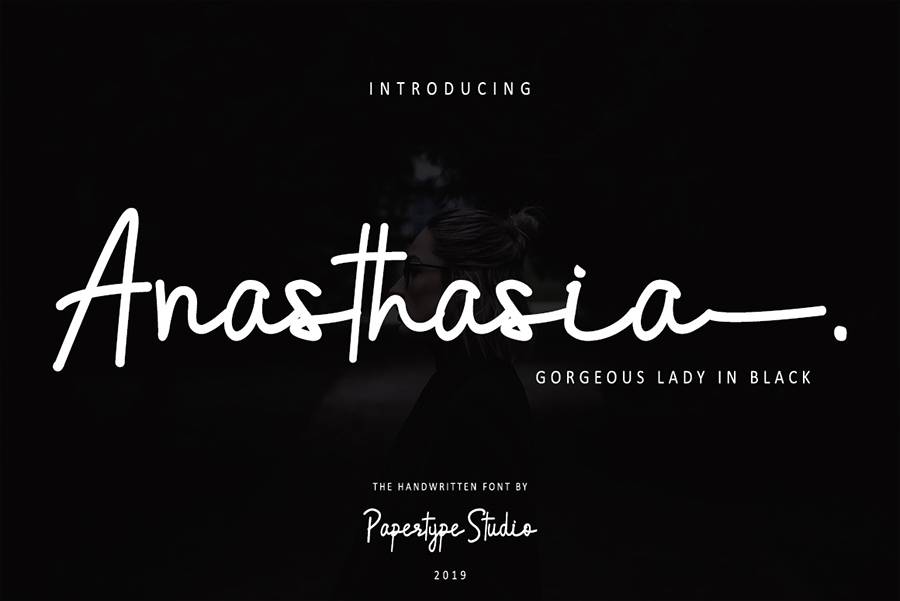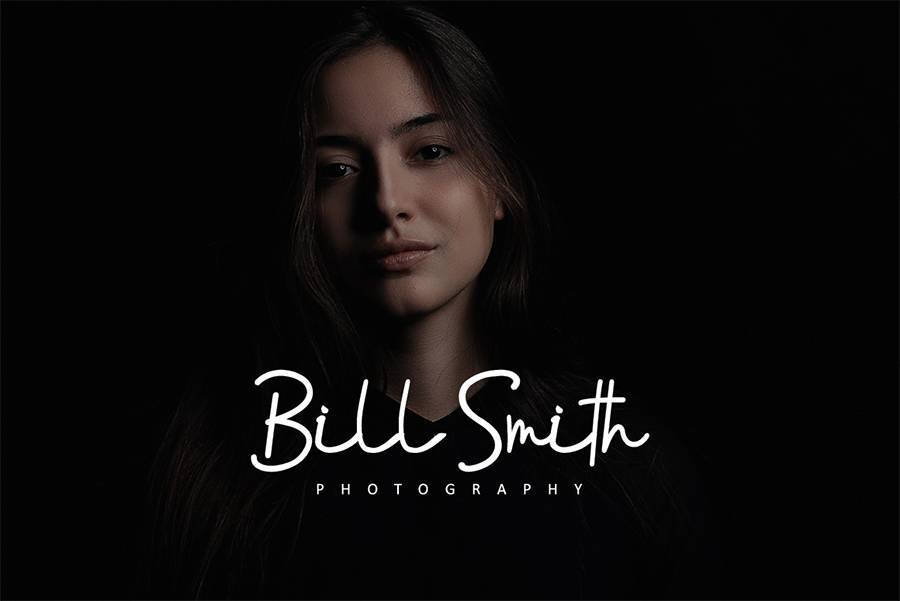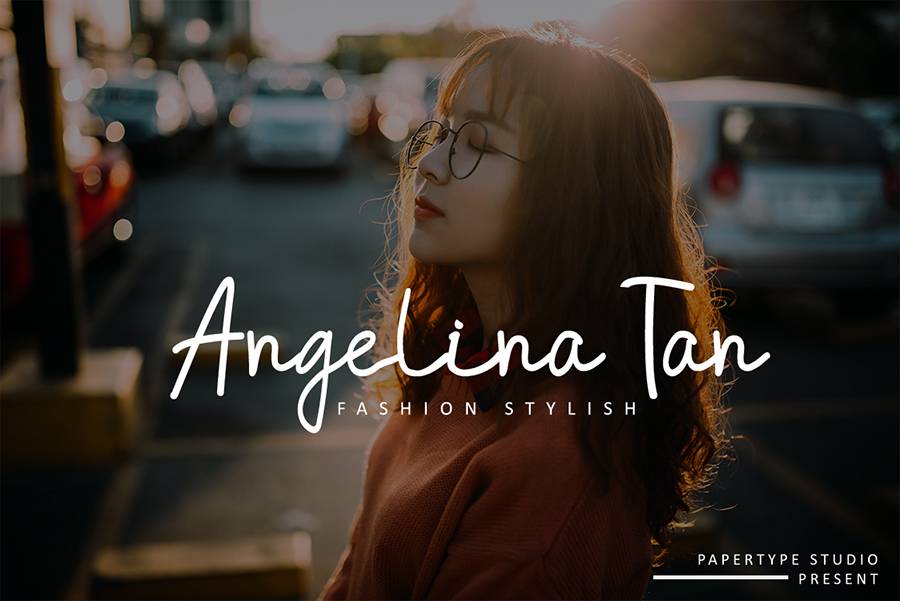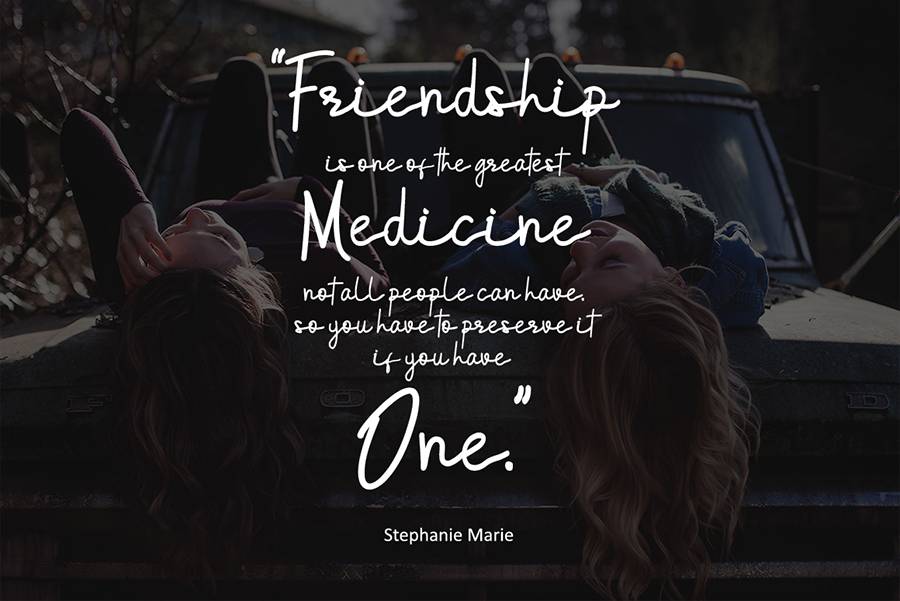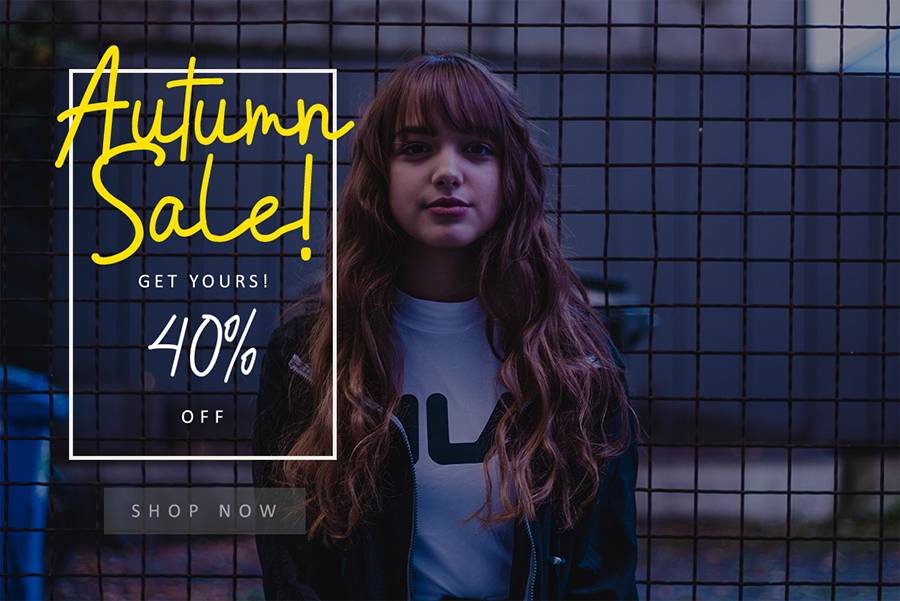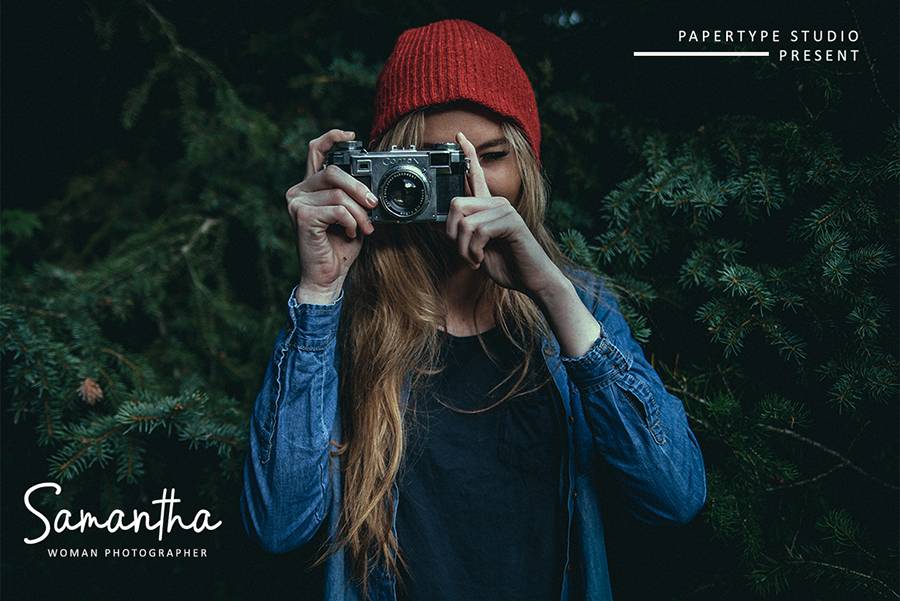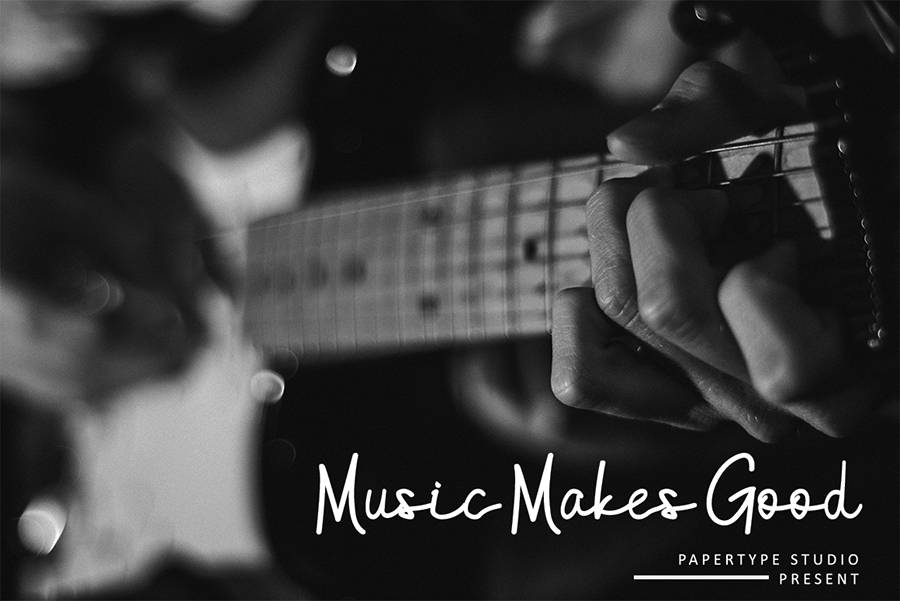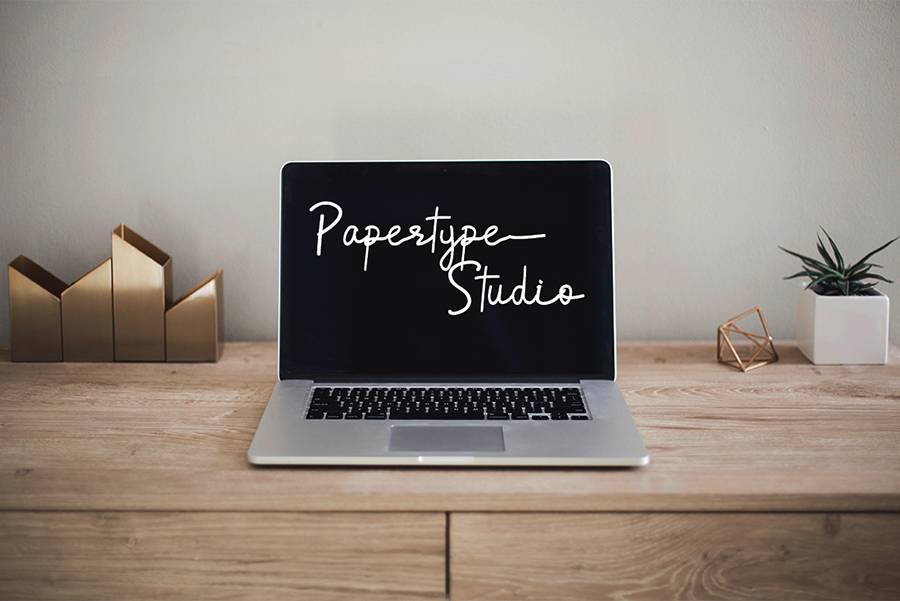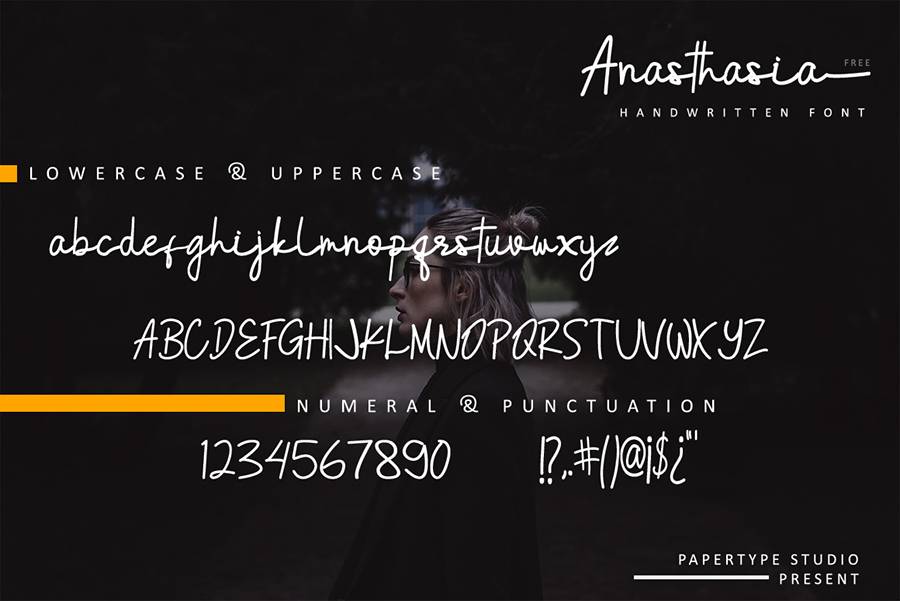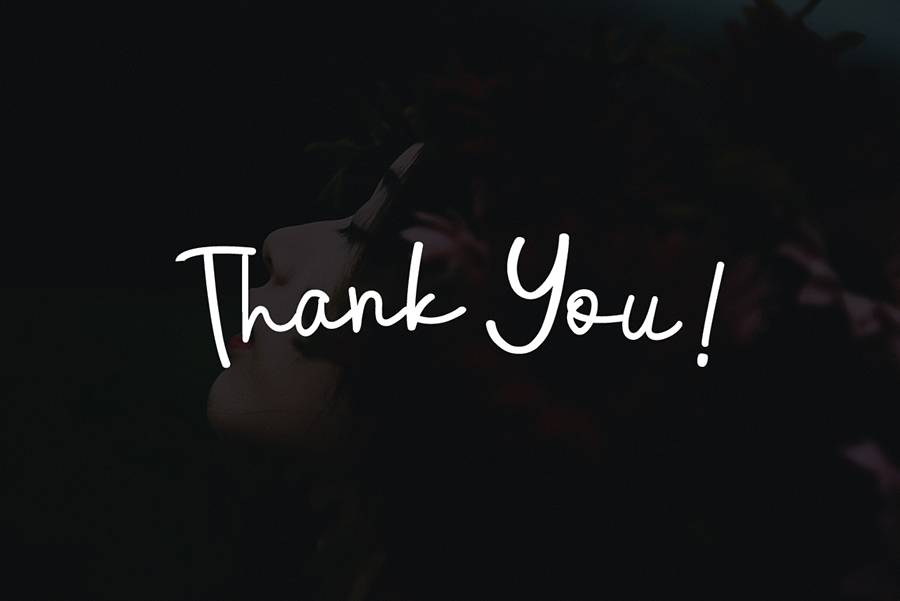
Anasthasia Handlettering Script is a casual, playful handwritten font with a light and airy feel, featuring thin, smooth strokes that mimic natural penmanship. Its tall, narrow letterforms and fluid connections create an inviting, personal touch, making it ideal for creative branding, invitations, and informal editorial use where a friendly, approachable style is desired.
Anasthasia Handlettering Script Font
About Anasthasia Handlettering Script Font
| Font family | Anasthasia Handlettering Script Font |
| Designer | Papertype Studio Co. |